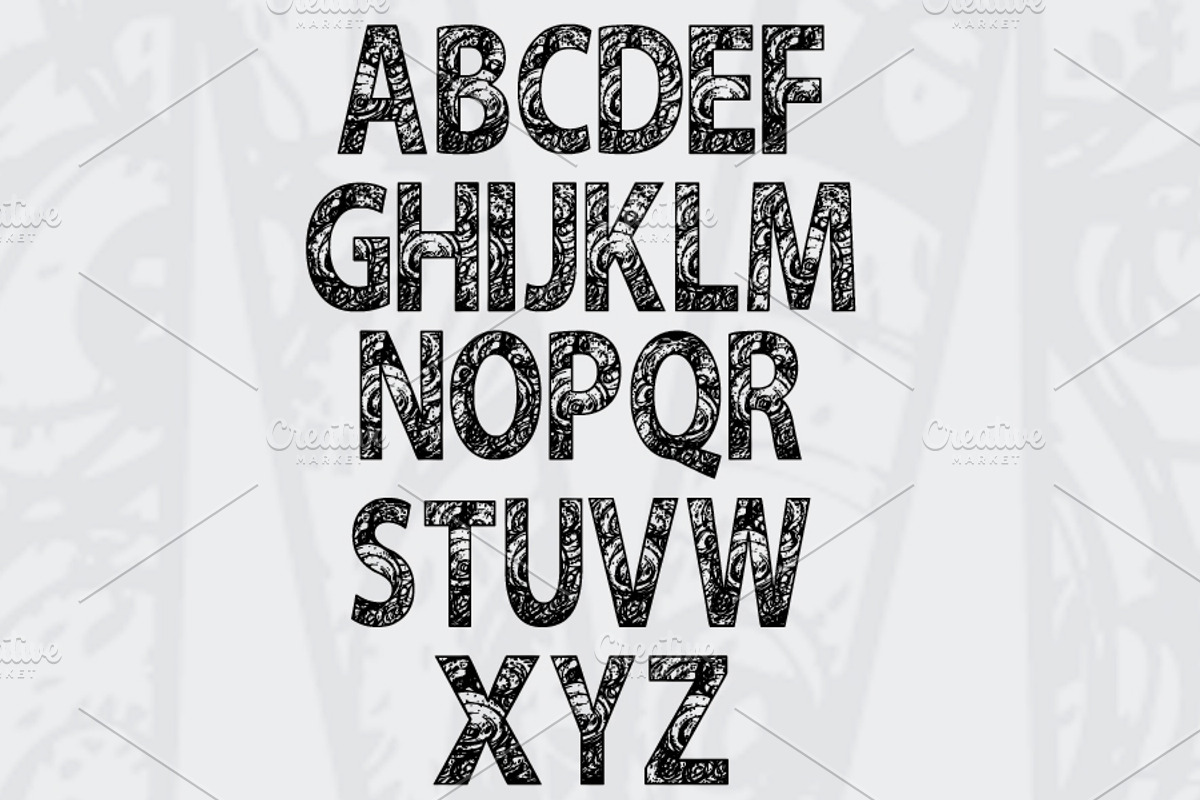
Round Sketch font
Round Sketch font by UVAconcept is a font selected for branding, posters, packaging, typography.
Why Round Sketch font is worth a look
Round Sketch font by UVAconcept fits naturally into Branding, posters, packaging, typography.